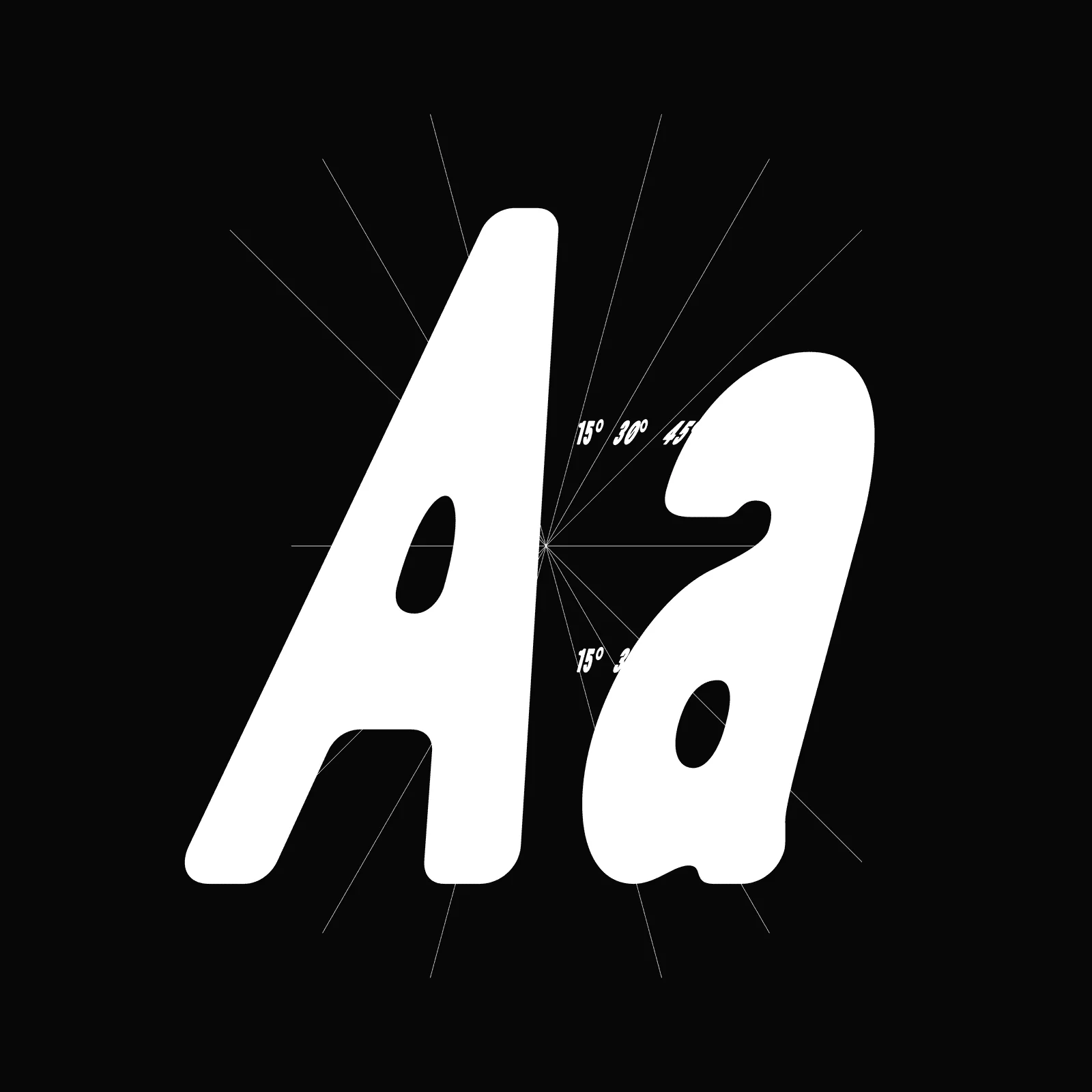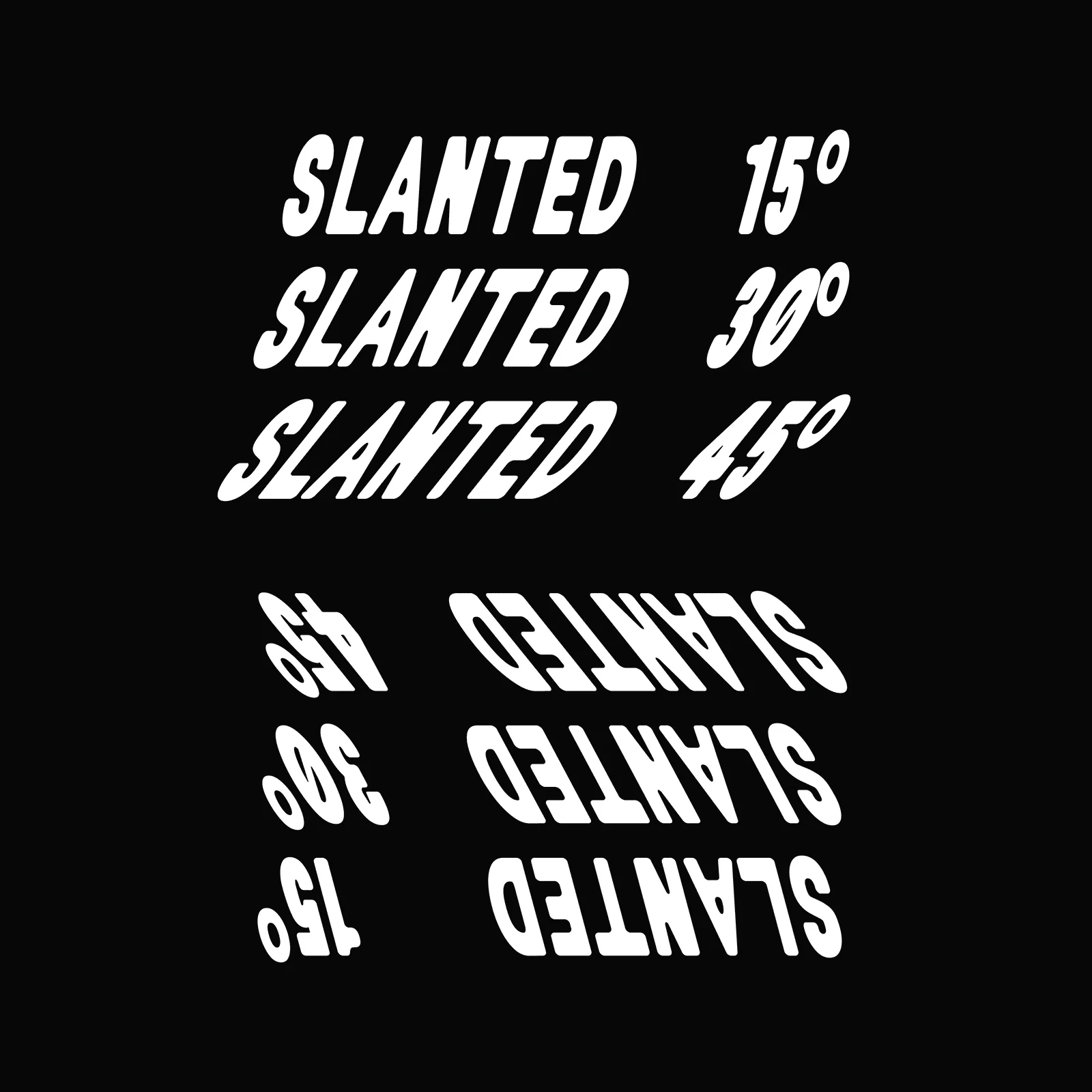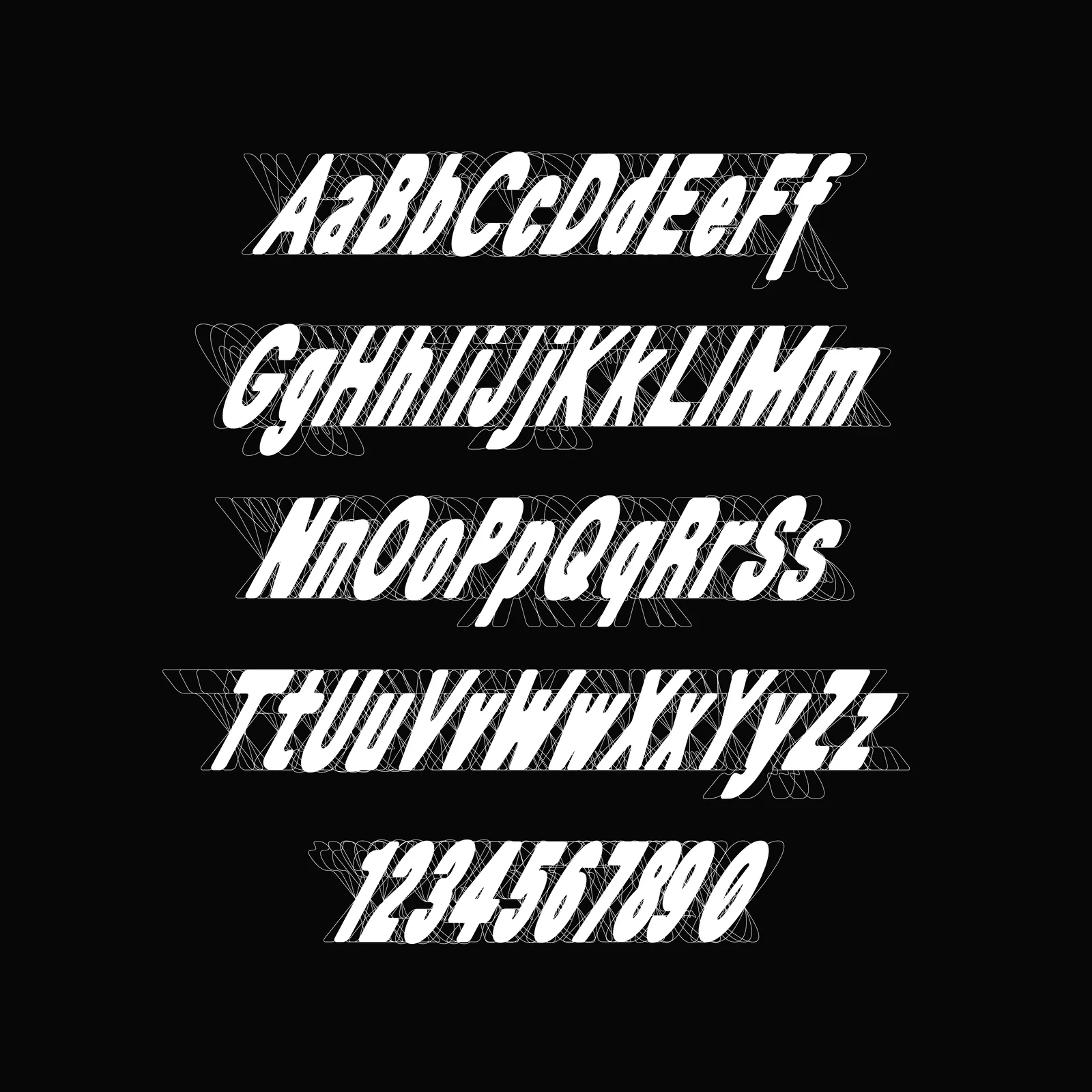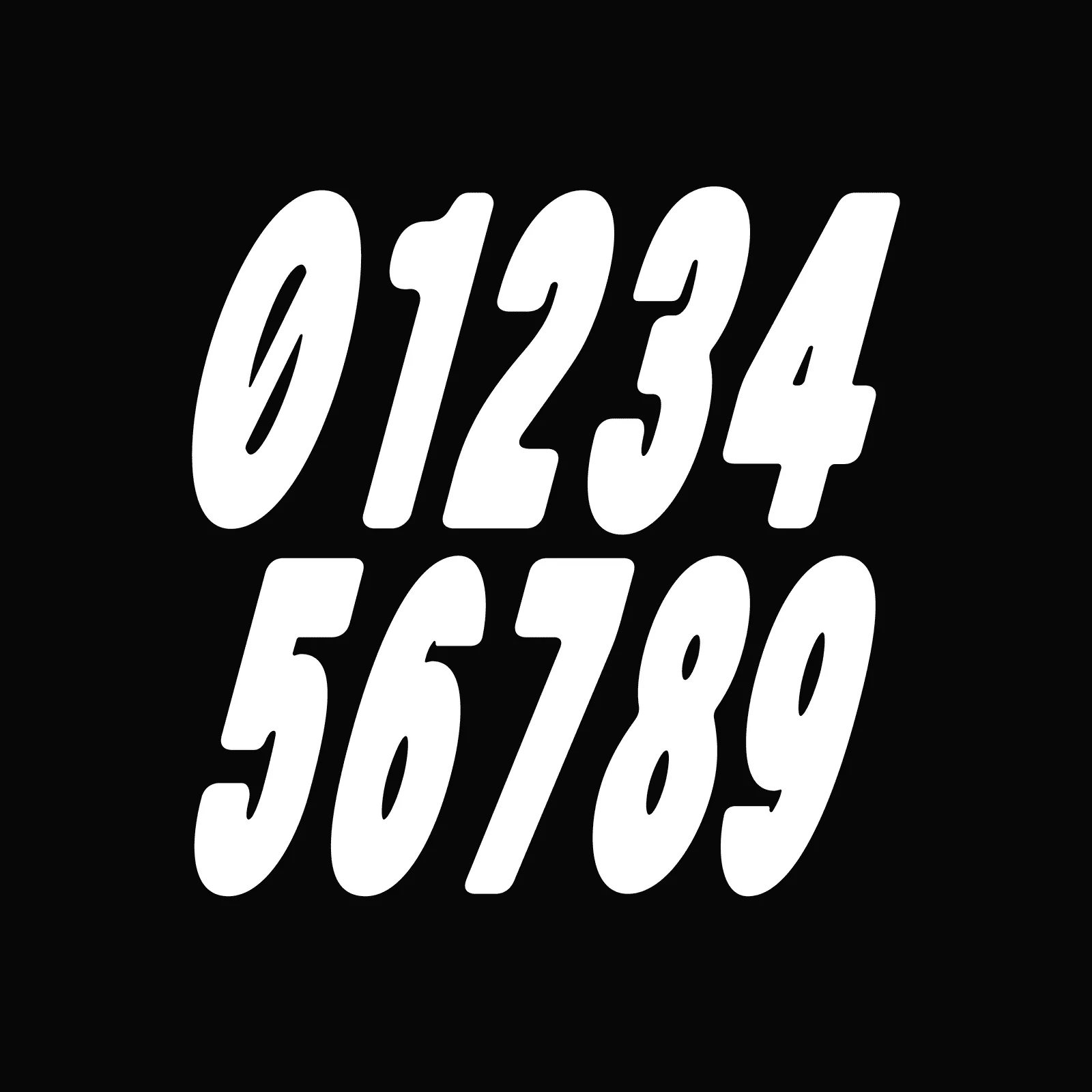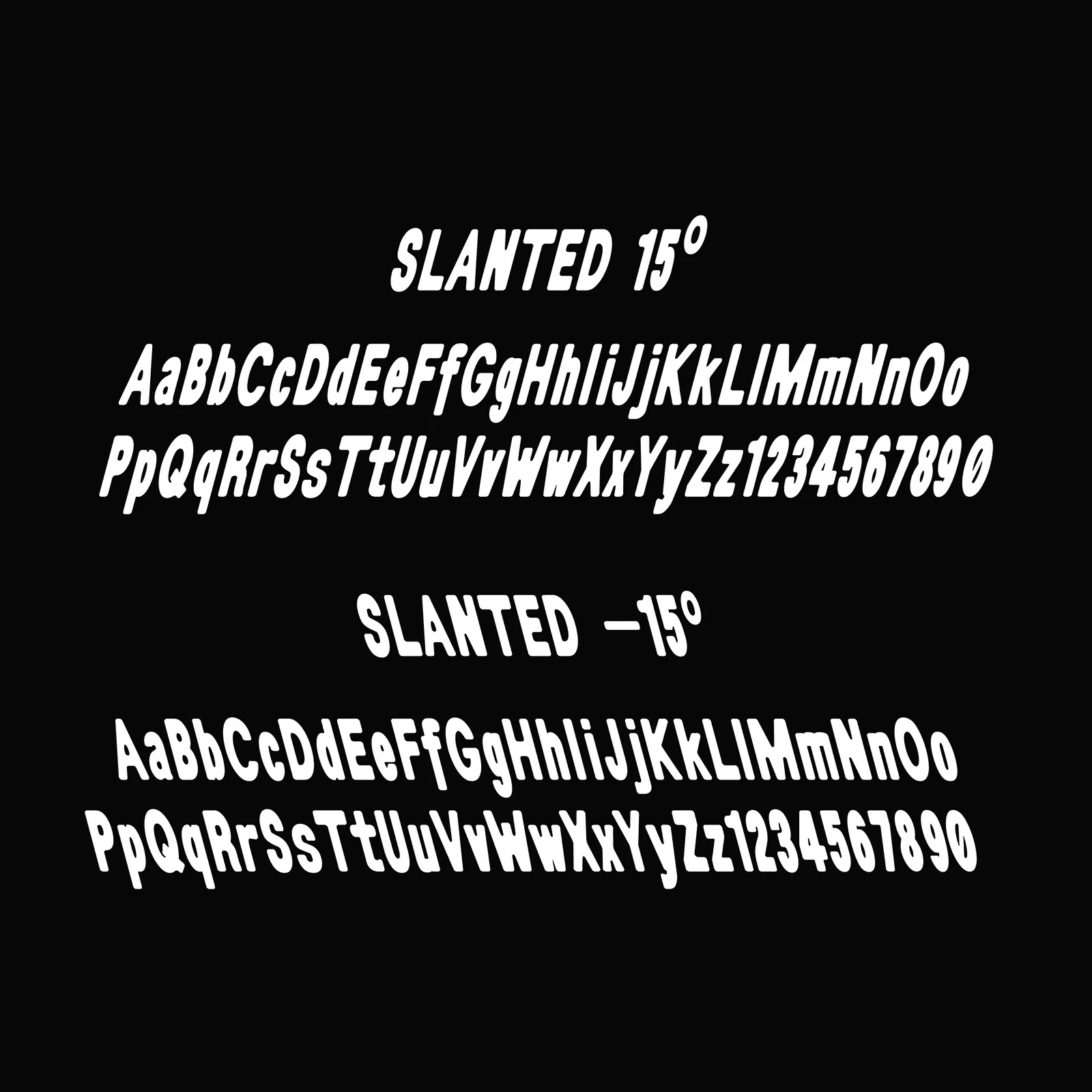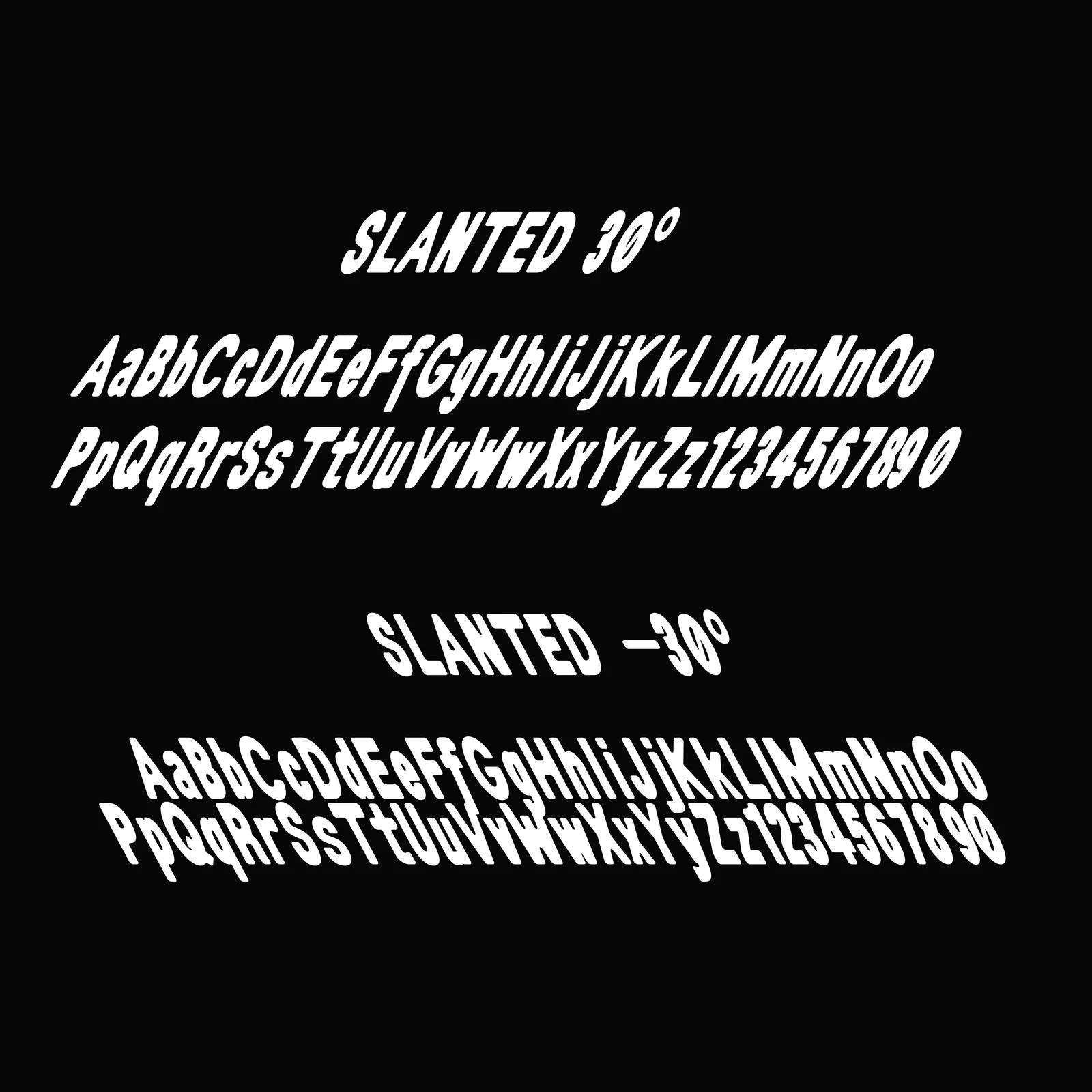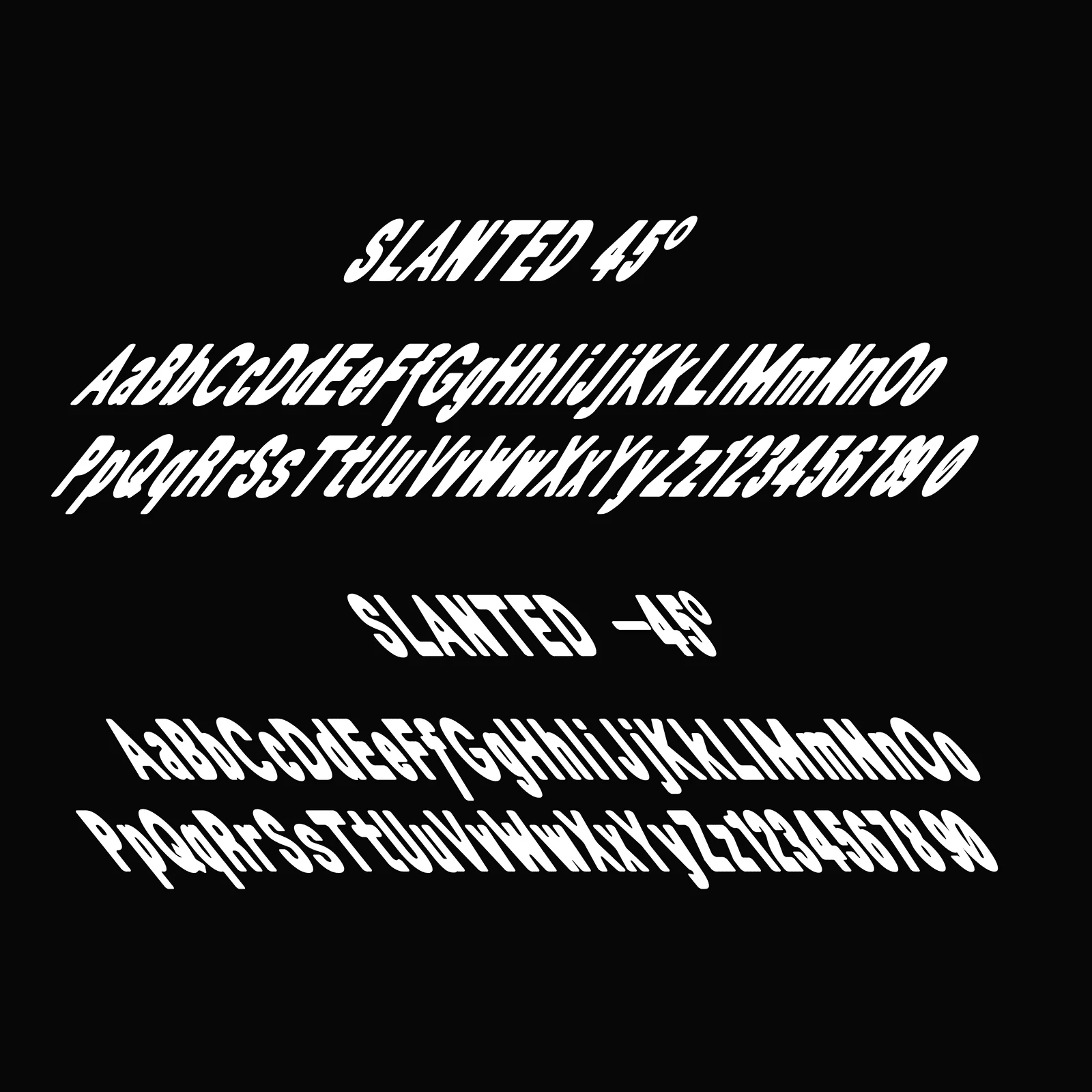
Serial A Slanted
Serial A is a bold and contemporary typeface, characterised by its highly compressed and thick letterforms. It is ideal for titles, creating a strong impact and capturing attention at any size.
Serial A Slanted is a typeface slanted from (-45°) to 45°, creating dynamic movement and distortion.
Serial A is a bold and contemporary typeface, characterised by its highly compressed and thick letterforms. It is ideal for titles, creating a strong impact and capturing attention at any size.
Serial A Slanted is a typeface slanted from (-45°) to 45°, creating dynamic movement and distortion.